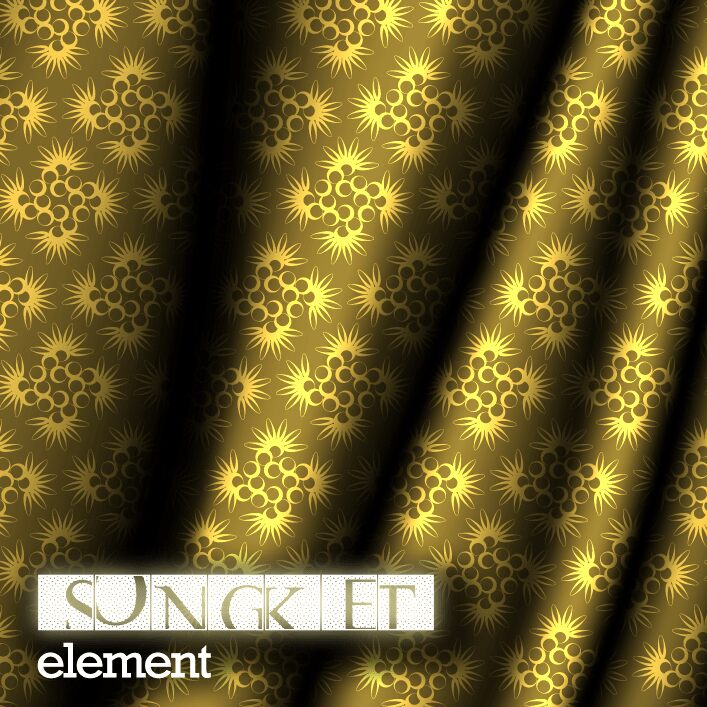
Songket by Cenz Qobbal is a free decorative display font built around dense, repeating woven ornament. Its broad capital forms are filled with interlocking circles and curved diamond-like details, giving each letter the intricacy of patterned cloth. Strong outer contours keep the elaborate interiors organized and make the alphabet feel architectural rather than delicate.
Designers working with textile, craft, or Southeast Asian cultural themes could use it for festival posters, fabric labels, and exhibition graphics. The repeating motif also suits decorative packaging and music artwork, where the lettering can become part of a larger field of geometric pattern rather than serving as neutral type.